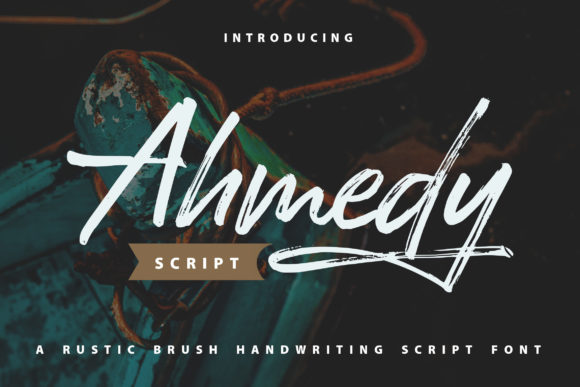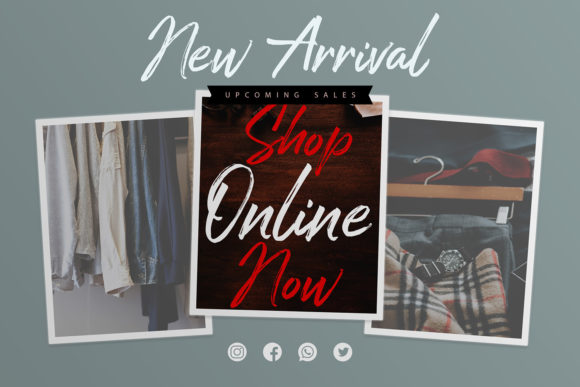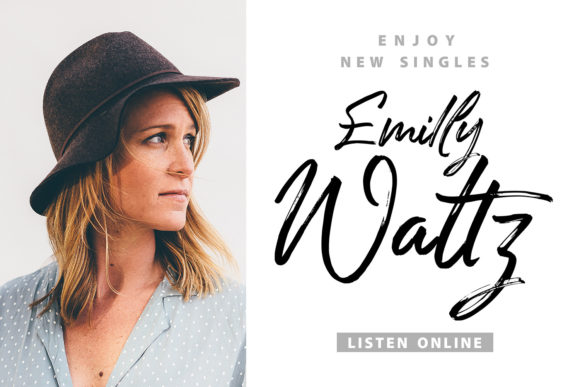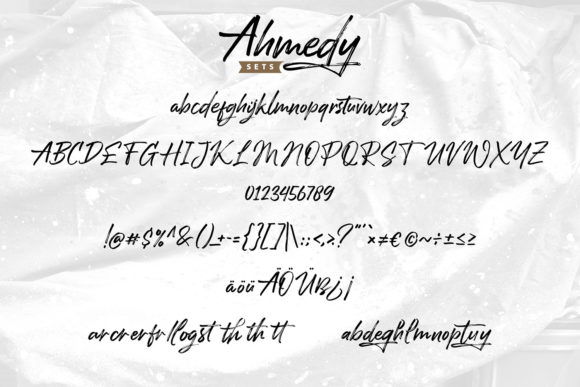
About Ahmedy | Rustic Brush Handwriting Script Font
Ahmedy is a modern handwritten font that has a natural and beautiful flow. It will look amazing on wedding invitations, greeting cards, branding materials, business cards, quotes, posters, and many more! Add it to your most creative designs to make them stand out!